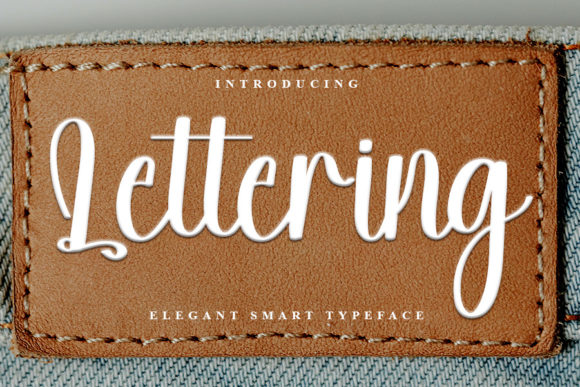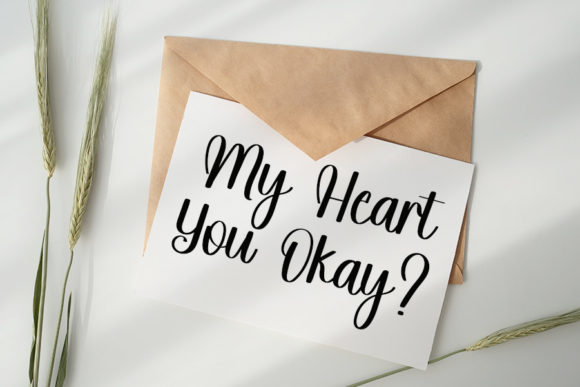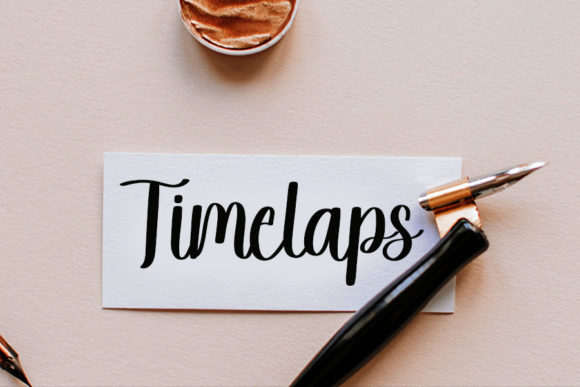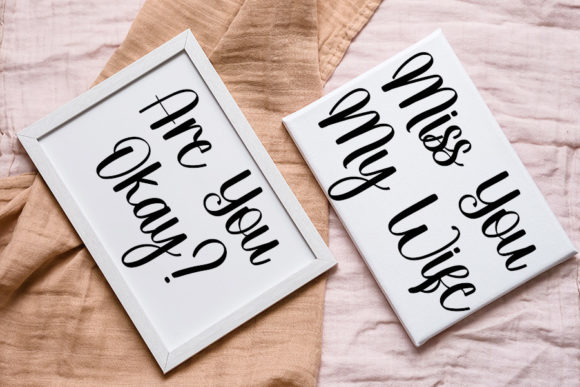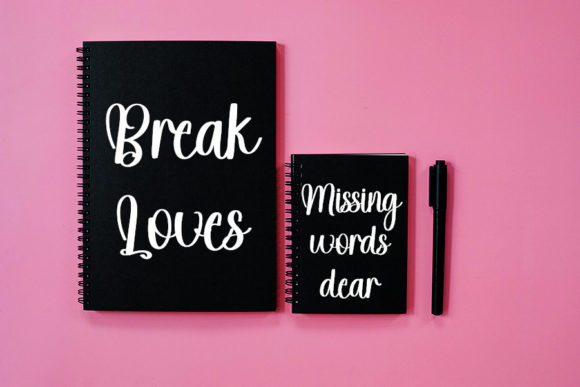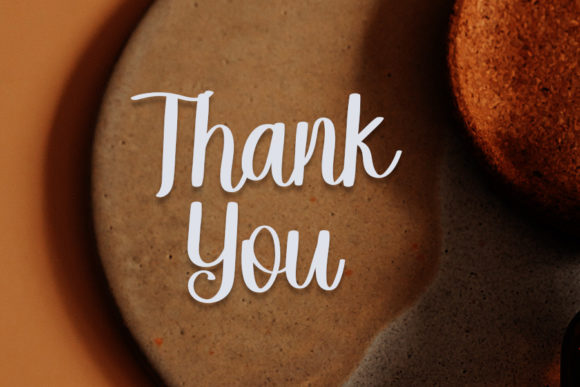
Lettering Font
About Lettering Font
Lettering is a gorgeous and bold handwritten font. It reads as confident and dynamic and can add tons of nostalgic character to your designs.